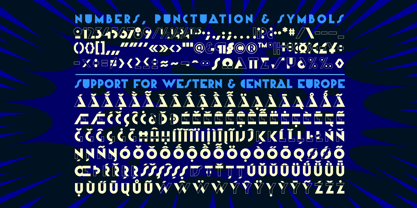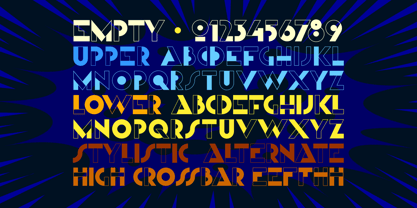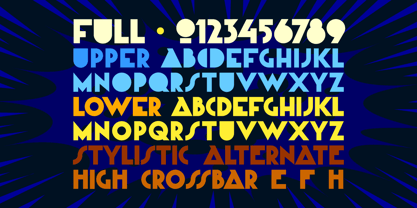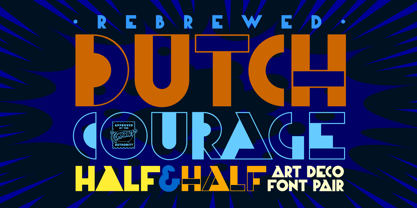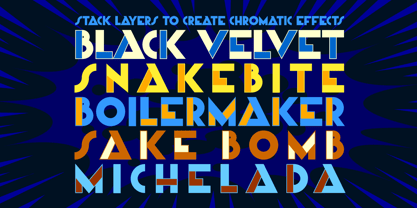
Dutch Courage Half&Half
by Comicraft
The Dutch Courage Half&Half Font Family was designed by Richard Starkings, John Roshell and published by Comicraft. Dutch Courage Half&Half contains 2 styles and family package options. More about this family
It’s time for the final round of Dutch Courage! HALF empty or HALF full? That’s the dilemma you’ll face when you choose HALF & HALF from our list of fine brews in your font menu. Is it a solid outline with no fill or is it a field color with boundaries? Is your glass half empty or half full? YOU decide! Either way, this one’s got it all in equal measures!
Designers: Richard Starkings, John Roshell
Foundry: Comicraft